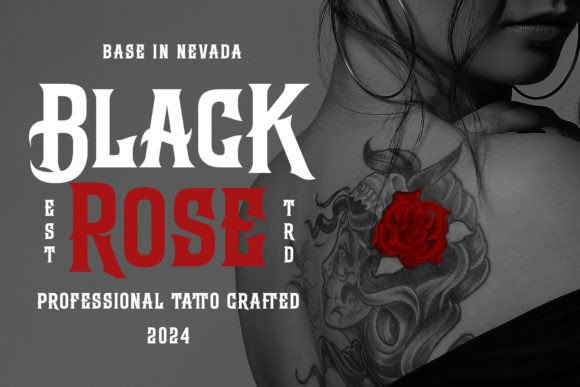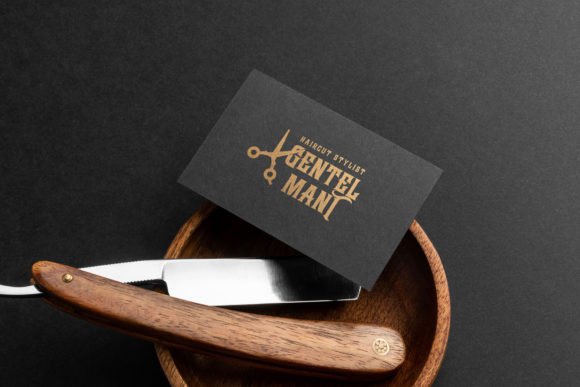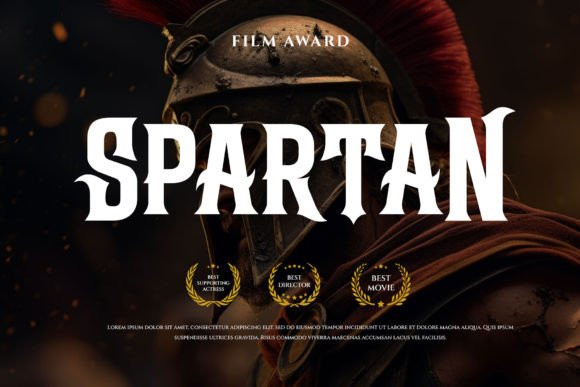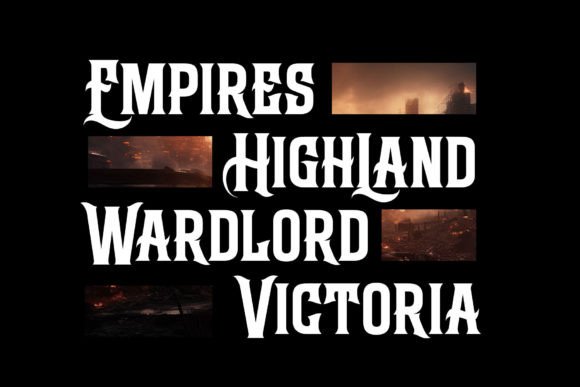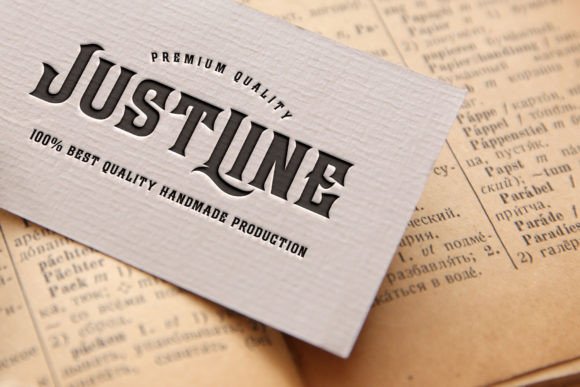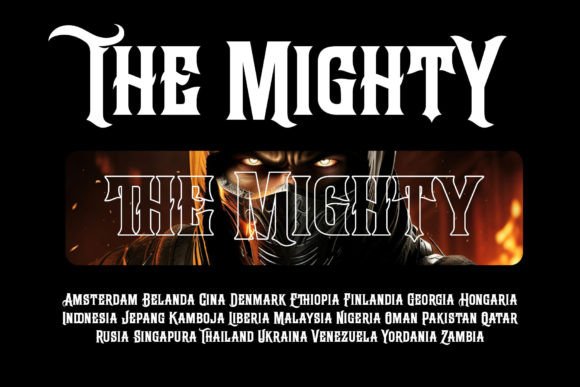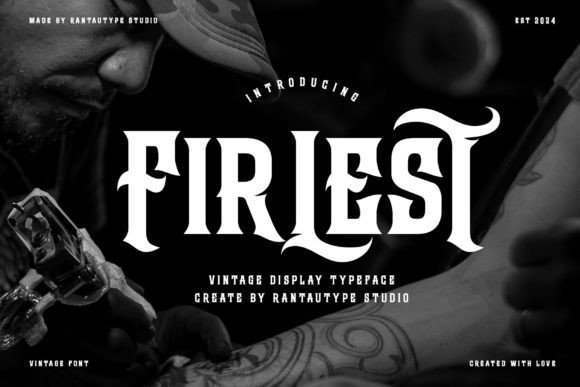
Firlest Font: Elevate Your Designs with a Touch of Vintage Elegance
In the world of typography, fonts play a crucial role in conveying the tone and personality of a design. For designers and crafters looking to add a touch of sophistication and nostalgia to their work, the Firlest Font is an excellent choice. This stylish, vintage-style display font is designed to capture the charm of a bygone era with its bold and elegant letterforms, making it perfect for a variety of design applications.
The Charm of Firlest Font
Firlest Font is a masterful blend of classic and contemporary design elements. Its bold and elegant letterforms evoke a sense of nostalgia, reminiscent of traditional printing techniques and timeless design. The font’s unique character lies in its ability to balance vintage charm with a modern edge, making it an excellent choice for designers looking to create distinctive and memorable designs.
Firlest Font is a versatile typeface that can be used in a wide range of design applications. Whether you’re looking to create a stunning logo, a captivating poster, or eye-catching packaging, this font is sure to impress. Its bold and elegant letterforms make it perfect for:
• Logos: Create a lasting impression with a custom logo that exudes sophistication and elegance.
• Posters: Grab attention and convey your message with a bold and eye-catching poster.
• Packaging: Elevate your brand’s packaging with a unique and memorable design that stands out on store shelves.
Key Features of Firlest Font
Firlest Font boasts a range of features that make it an excellent choice for designers and crafters. Some of its key features include:
• Vintage charm: Firlest Font’s bold and elegant letterforms evoke a sense of nostalgia and classic charm.
• Contemporary edge: The font’s modern design elements ensure that your designs look fresh and contemporary.
• High-quality design: Firlest Font is designed to the highest standards, ensuring crisp and clear letterforms at any size.
Tips for Using Firlest Font
To get the most out of Firlest Font, here are a few tips to keep in mind:
• Experiment with sizes: Firlest Font looks great at any size, so don’t be afraid to experiment with different sizes to find the perfect fit for your design.
• Play with colors: The font’s bold and elegant letterforms look great in a range of colors, so try experimenting with different hues to find the perfect match for your brand.
• Pair with complementary fonts: Firlest Font pairs well with a range of complementary fonts, so try experimenting with different combinations to find the perfect fit for your design.
In conclusion, Firlest Font is a stylish, vintage-style display font that is perfect for designers and crafters looking to add a touch of sophistication and nostalgia to their work. Its bold and elegant letterforms evoke a sense of classic charm, while its modern design elements ensure that your designs look fresh and contemporary. With its versatility, high-quality design, and ease of use, Firlest Font is an excellent choice for a wide range of design applications.